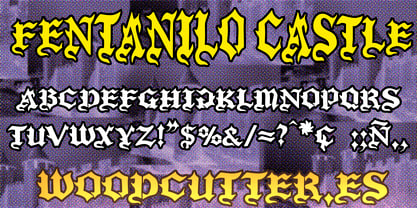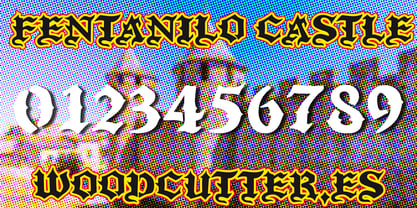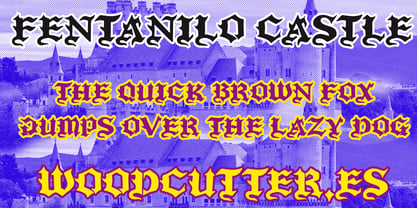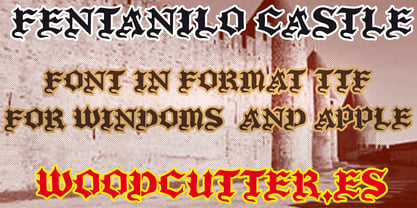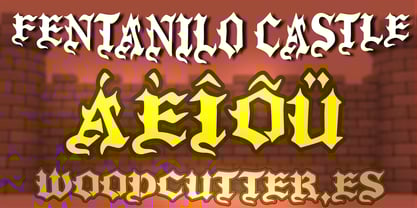
Fentanilo Castle
by Woodcutter
The Fentanilo Castle Font Family was designed by Jordi Manero and published by Woodcutter. Fentanilo Castle contains 1 styles. More about this family
"Fentanilo Castle" is an all-uppercase font with accents that blends classic Gothic aesthetics with a solid and bold design. Its letters feature a robust structure with slightly pointed edges, giving them an elegant and powerful appearance. Perfect for projects aiming to convey strength, mystery, or drama, this typeface stands out in titles, logos, or posters with a dark and sophisticated style. Its balance between strong lines and sharp details makes it a versatile choice for medieval-inspired or modern Gothic designs.